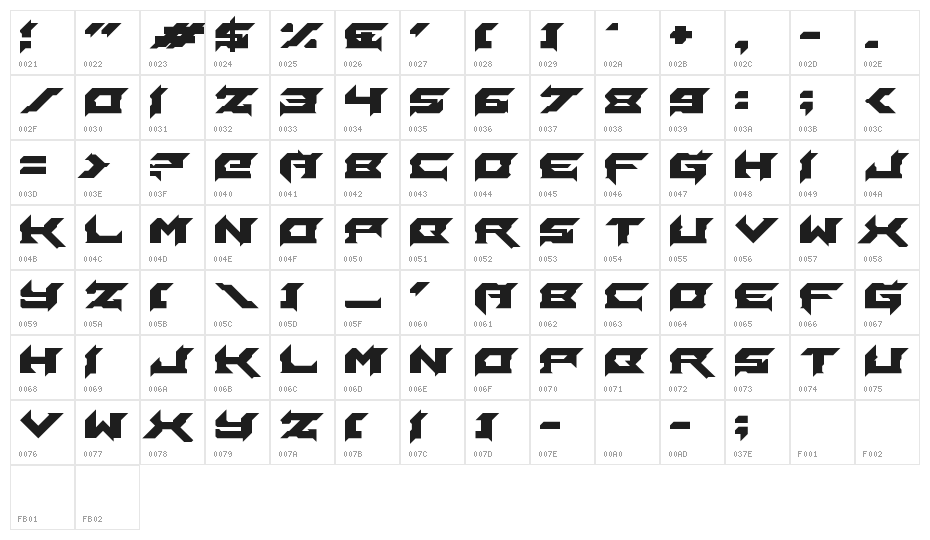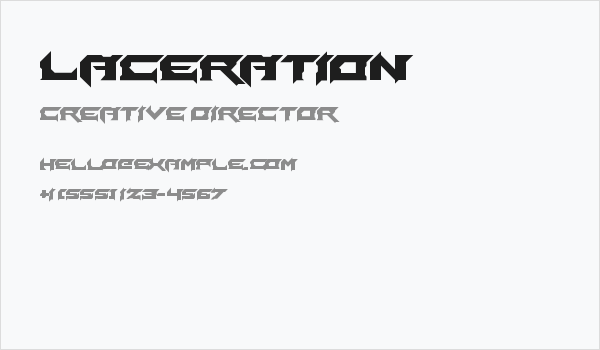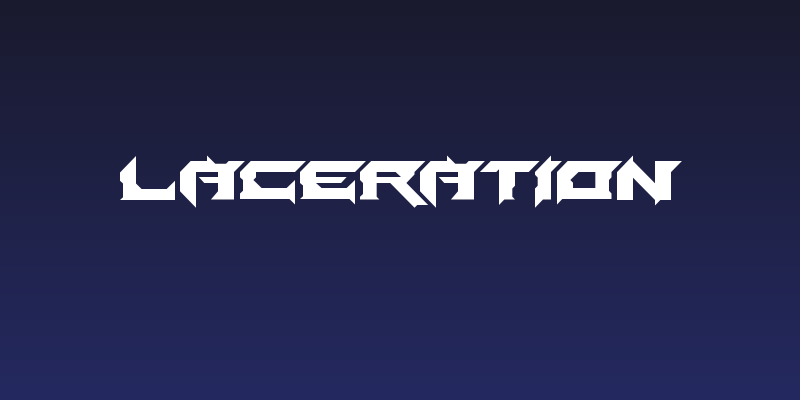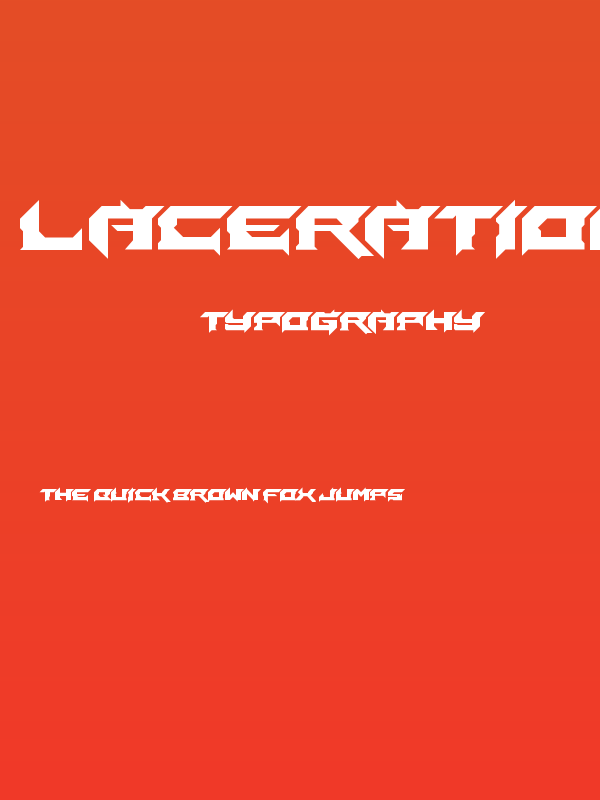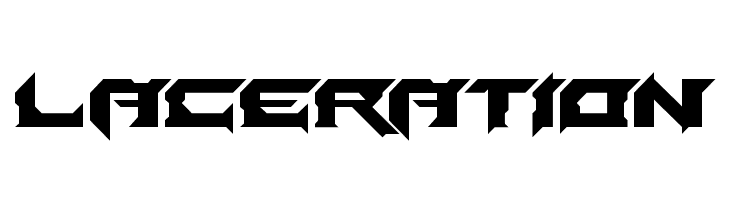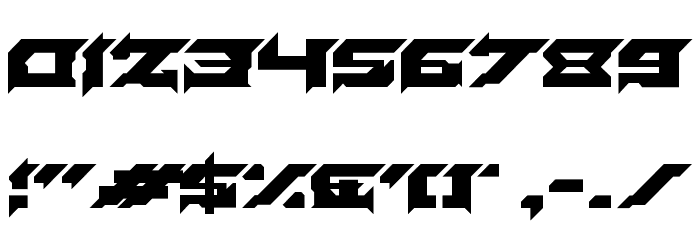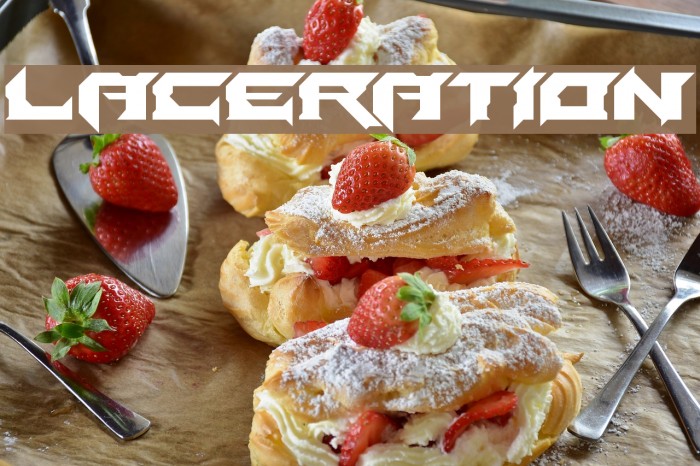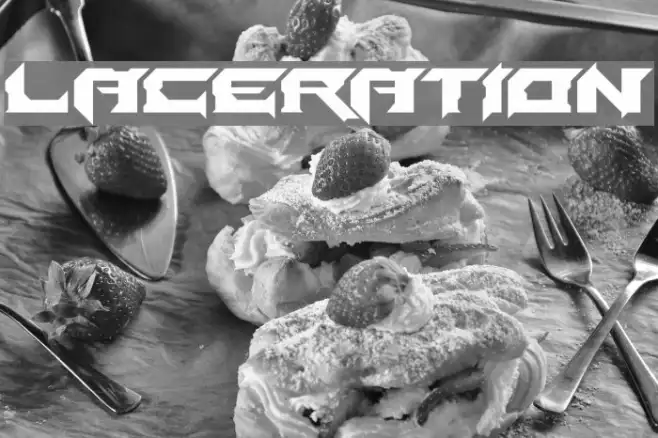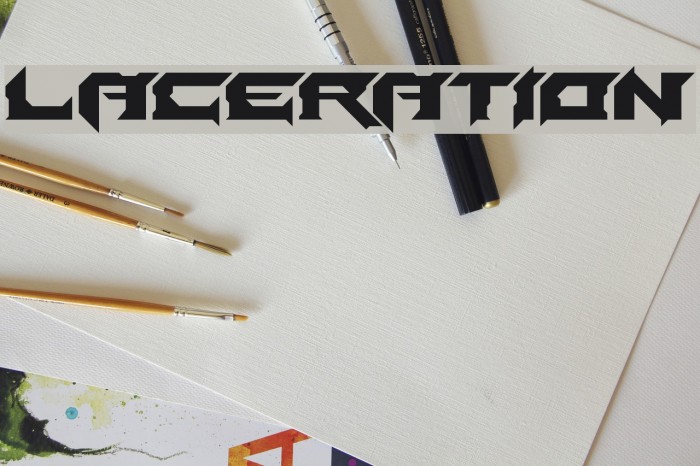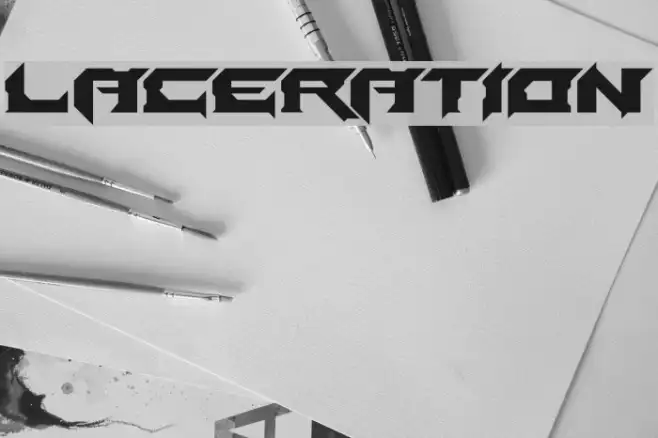
Laceration Font
Laceration Description
This font features a bold, angular design with sharp, jagged edges that give it a dynamic and aggressive appearance. The characters are heavily stylized, with each letter incorporating unique cuts and angles that create a sense of movement and intensity. The uppercase and lowercase letters maintain a consistent style, while the numbers and special characters follow the same edgy aesthetic. This font is highly decorative, making it stand out in any design project.
| Overall Style | Modern, Aggressive |
| Proposed Projects | Ideal for projects that require a strong visual impact, such as posters, album covers, video game titles, and branding for extreme sports or edgy fashion lines. |